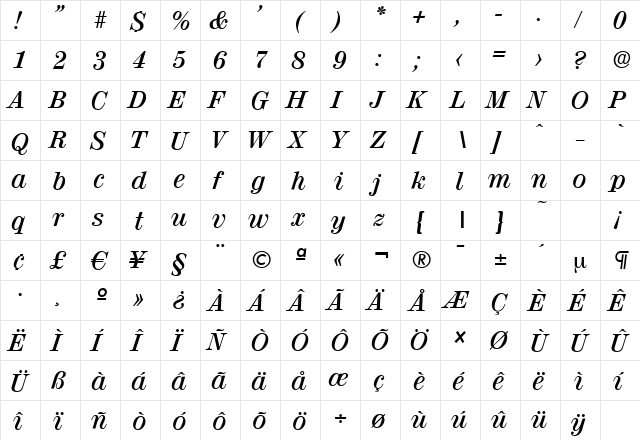
ValenciaSerial BoldItalic Font Preview
Design Context for ValenciaSerial Typeface
ValenciaSerial takes a measured approach to typography — its balanced proportions and neutral character make it a reliable workhorse for both digital and print work. Its italic angle brings a sense of urgency and motion to the letterforms. The heavy weight commands attention and anchors typographic hierarchies.
Pro Tip: Try ValenciaSerial for annotation and caption copy alongside an upright companion — the contrast in angle creates a dynamic but ordered typographic system.